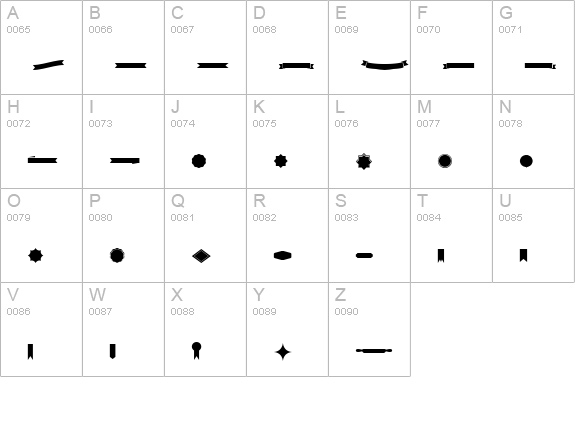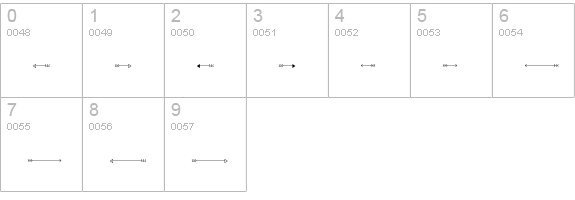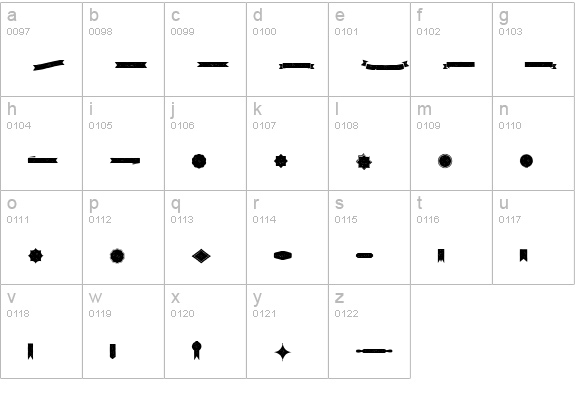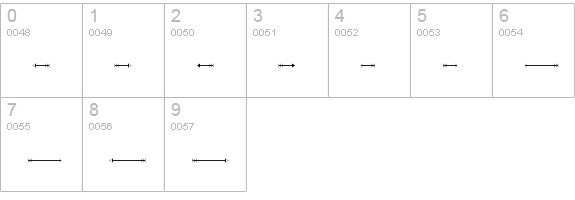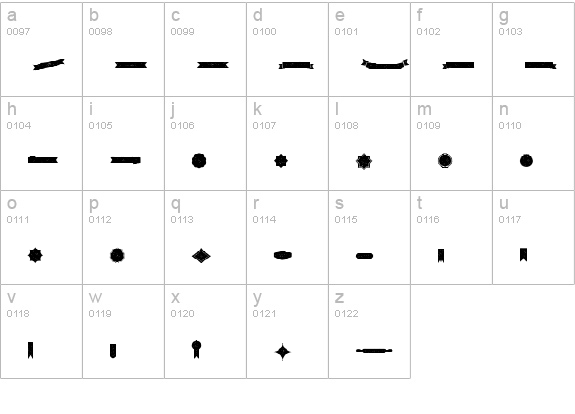
Tolyer X Element Font Details
Tolyer X Element is a striking and modern font that exudes elegance and sophistication. With its clean lines and unique design elements, this font is perfect for adding a touch of style to any project. Whether you're creating a logo, designing a website, or working on a branding project, Tolyer X Element is sure to make a statement. What sets this font apart is not only its aesthetic appeal but also its versatility. It can be used for a wide range of design projects, from print materials to digital assets. The clean and crisp lines of Tolyer X Element make it easy to read and eye-catching, ensuring that your message will be conveyed effectively. Best of all, Tolyer X Element is available for free download at FontsMarket.com. This means that you can easily access this stunning font and incorporate it into your projects without any cost. Don't miss out on the opportunity to elevate your design work with Tolyer X Element – download it today and see the difference it can make!